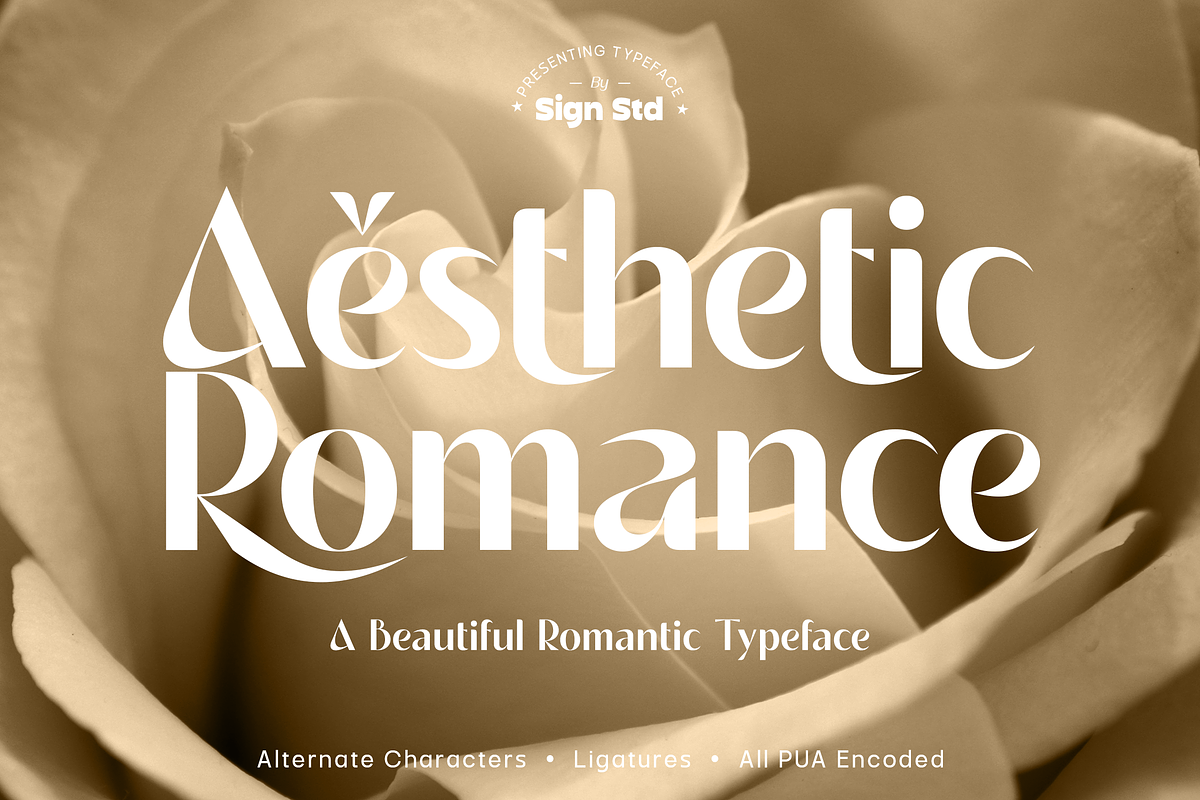
Aesthetic Romance Font Free Download is a graceful and elegant typeface designed to add a touch of beauty and charm to your creative projects. With its delicate curves and romantic style, this font is perfect for wedding invitations, branding, logos, greeting cards, and social media graphics that need a soft and sophisticated look.
Whether you’re designing for a luxury event, creating heartfelt invitations, or crafting a stylish logo, Aesthetic Romance brings an air of elegance and romance to your typography. It’s the ideal font for designers who value beauty, grace, and refinement in their work.